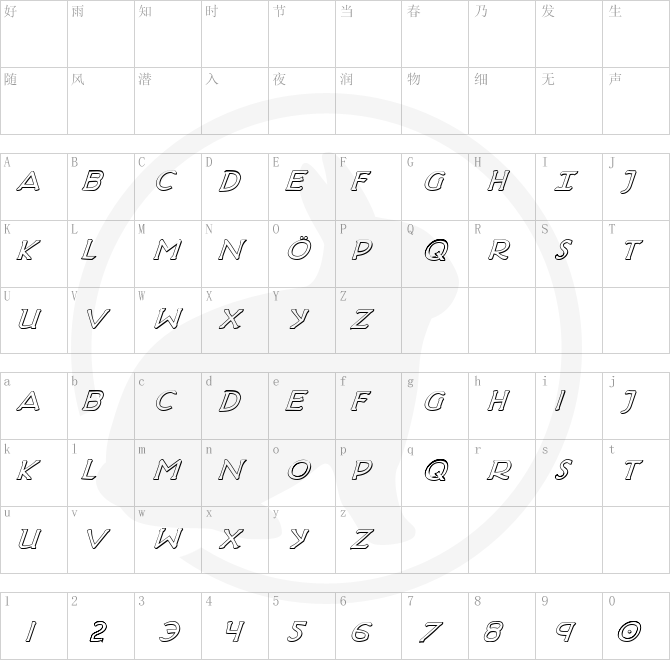
- Font Name:Hadriatic Shadow Italic
Hadriatic-Shadow-Italic.ttf is a very beautiful artistic font, Hadriatic-Shadow-Italic.ttf is widely used in the design and printing of various books and pictures,Hadriatic-Shadow-Italic.ttf has a strong visual impact,Hadriatic-Shadow-Italic.ttf is a commonly used font in newspapers, magazines and books, and is used in posters, e-commerce Poster design, store design, logo design, font design and other fields.Hadriatic-Shadow-Italic.